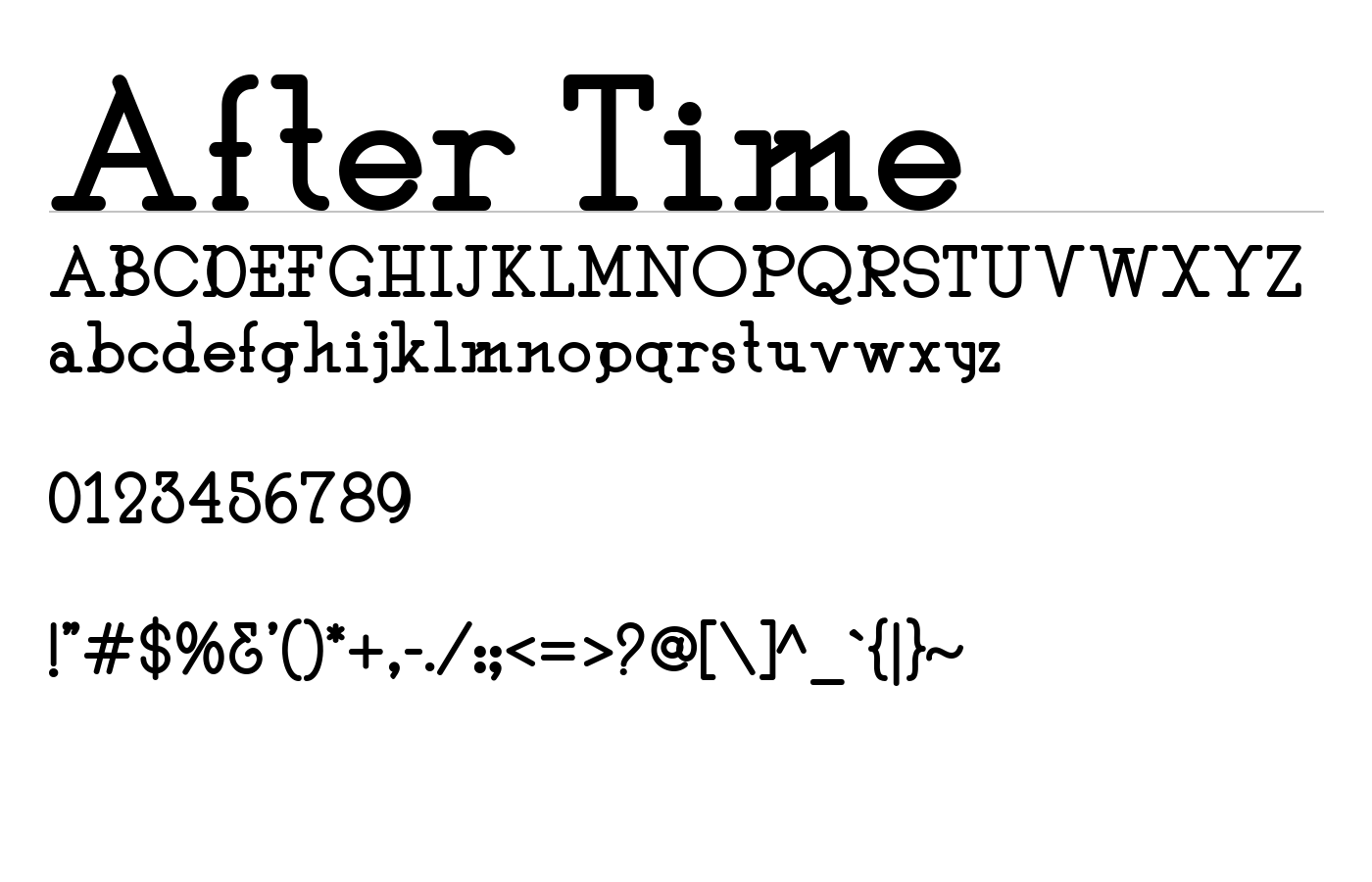
After Time is a slab serif font characterized by its sturdy, block-like serifs and a moderate contrast between thick and thin strokes. It combines a vintage typewriter feel with a slightly playful, humanist touch through its rounded terminals and unique letterforms, making it ideal for projects seeking a blend of classic tradition and casual personality. This font works well in editorial design, branding, and headlines where a distinctive, approachable yet robust presence is desired.